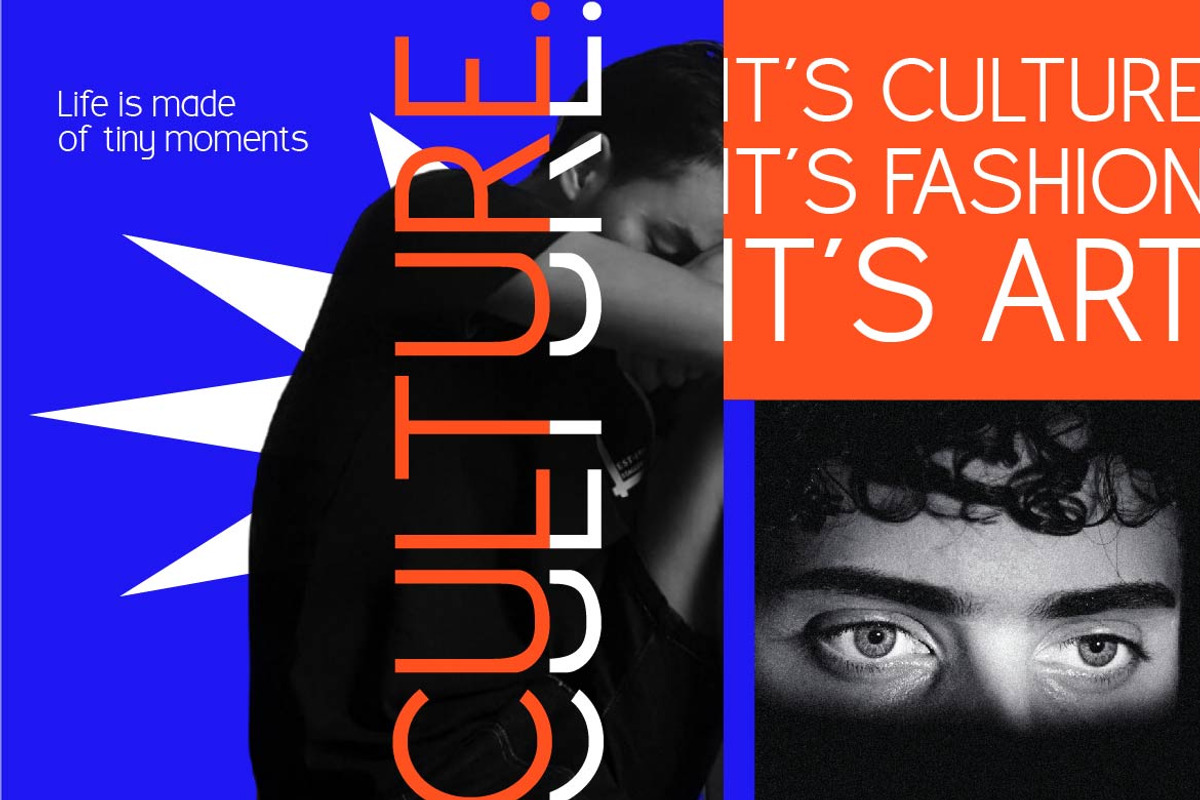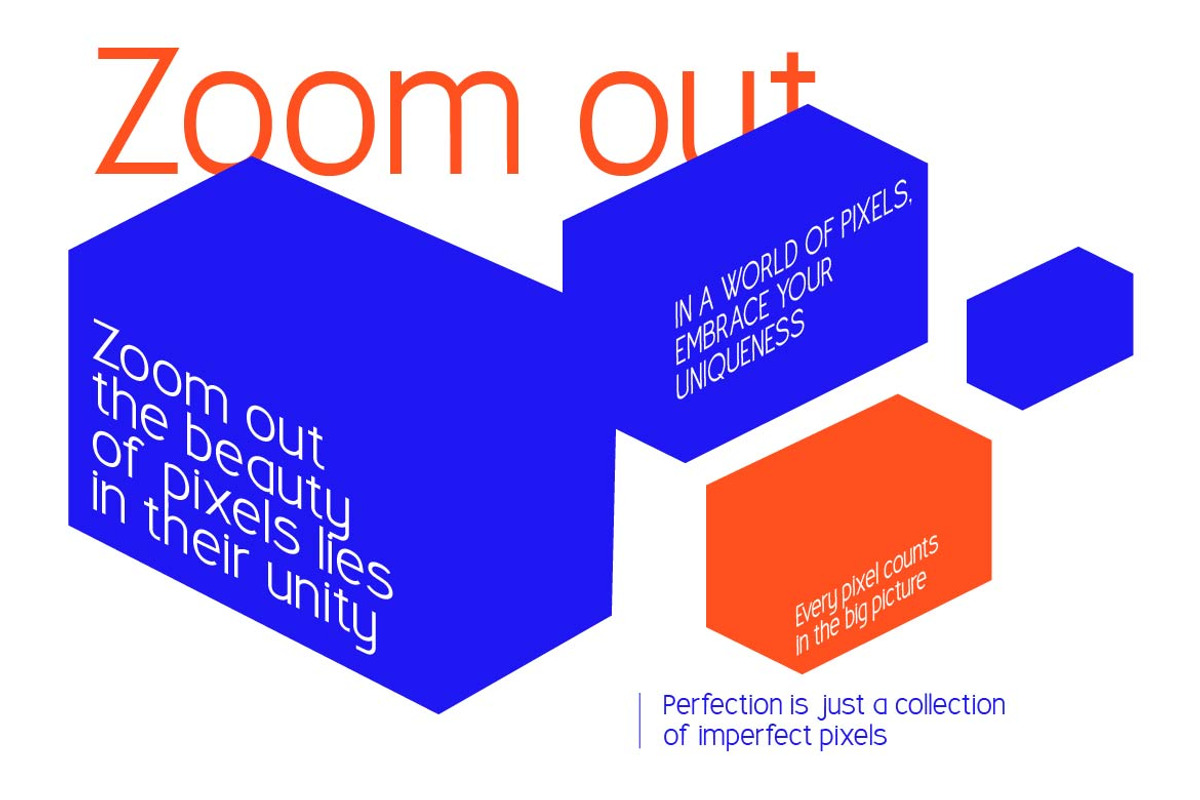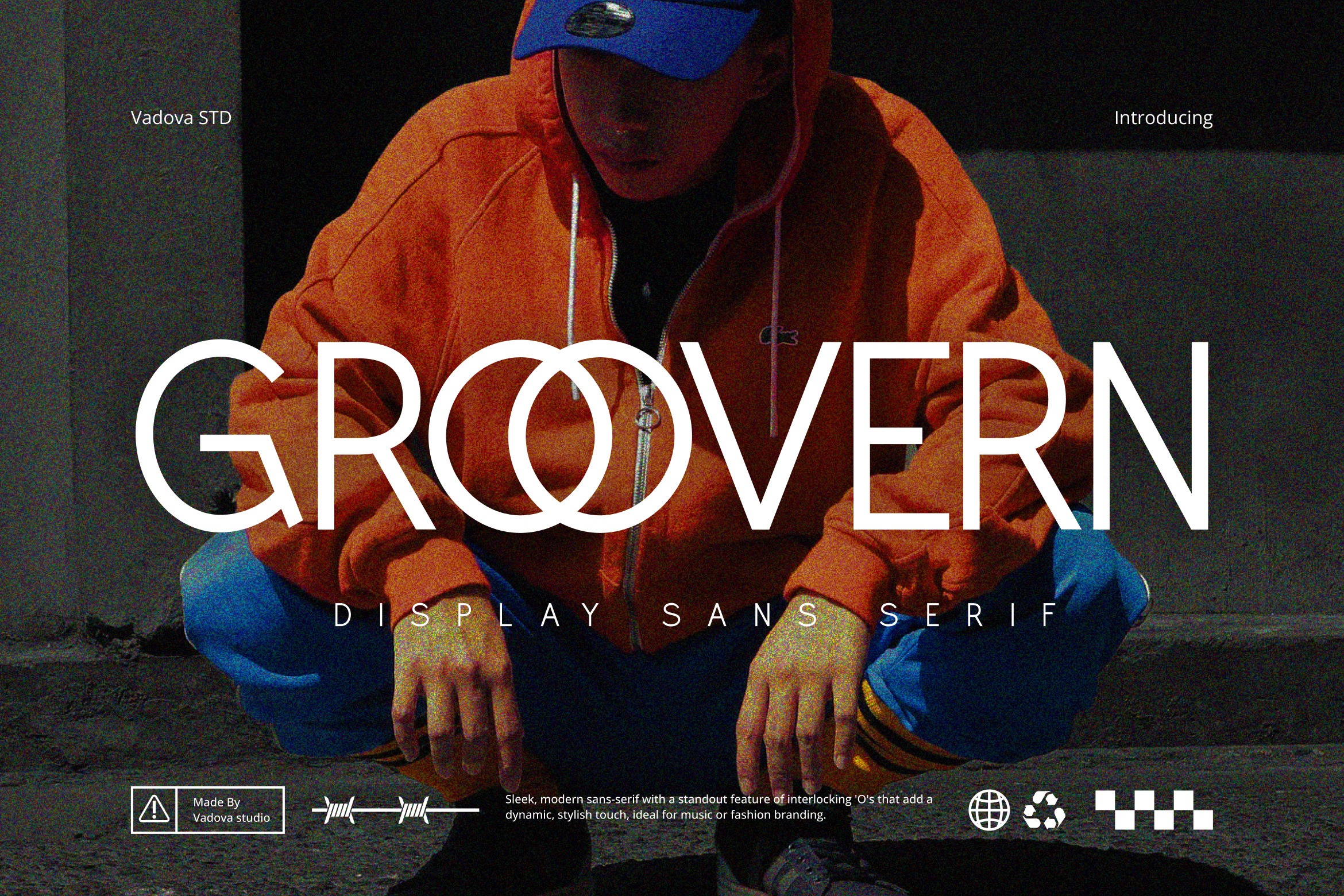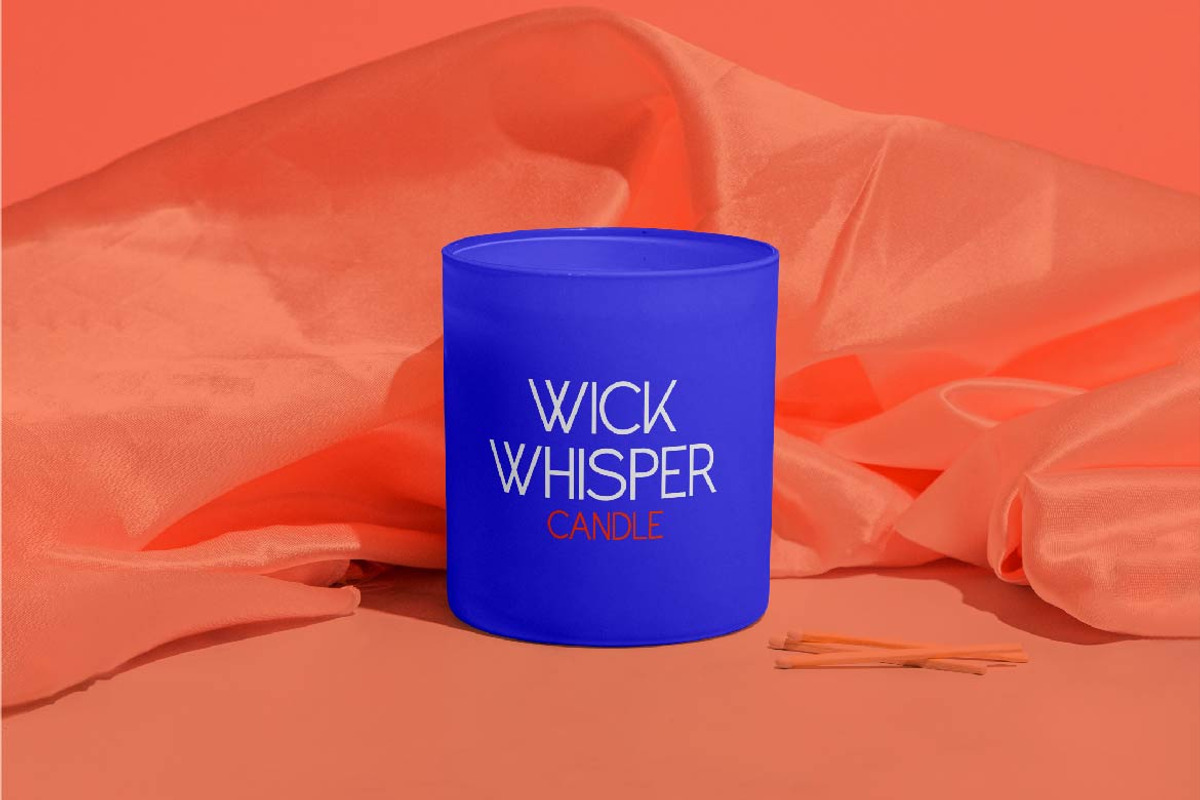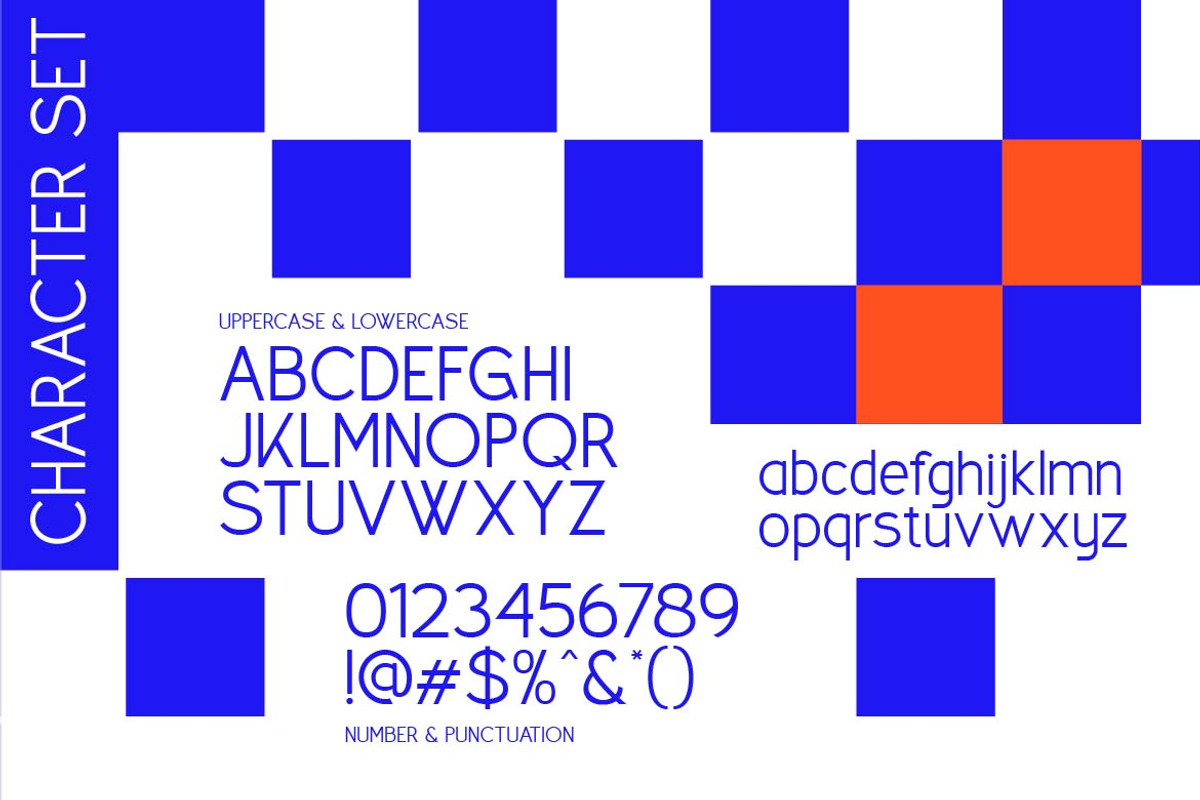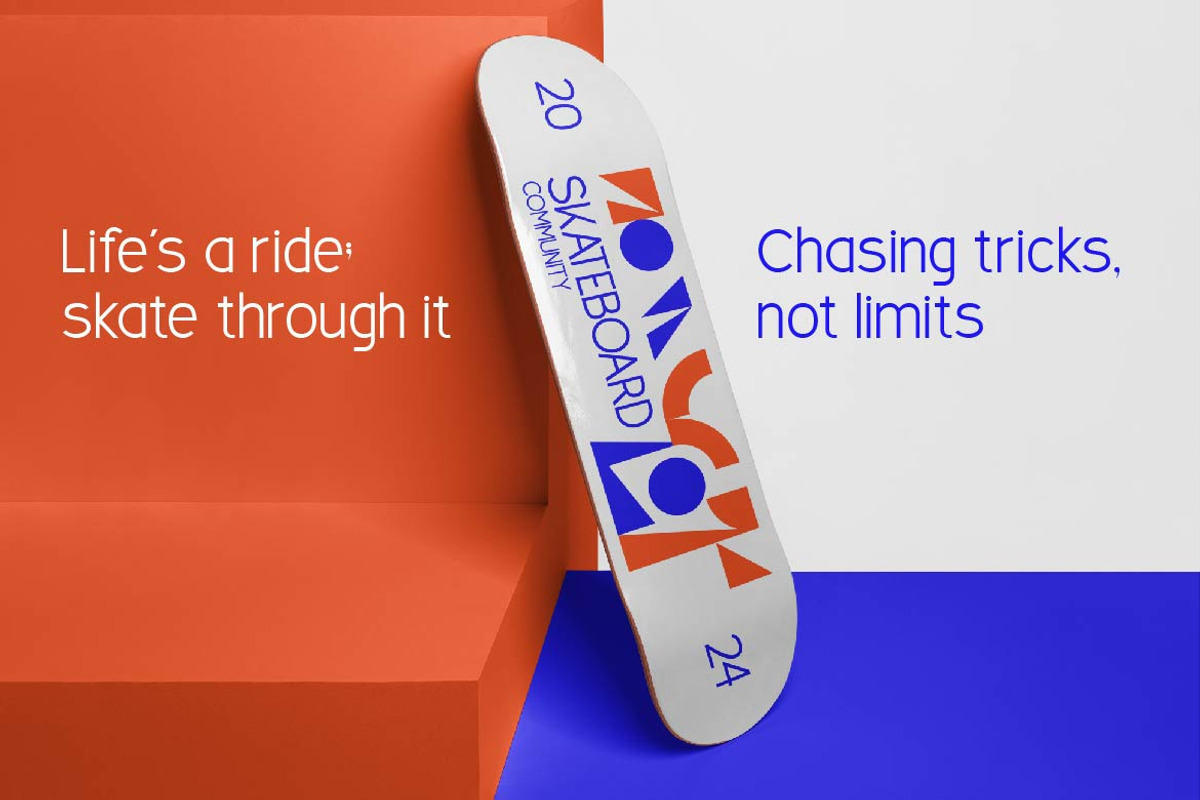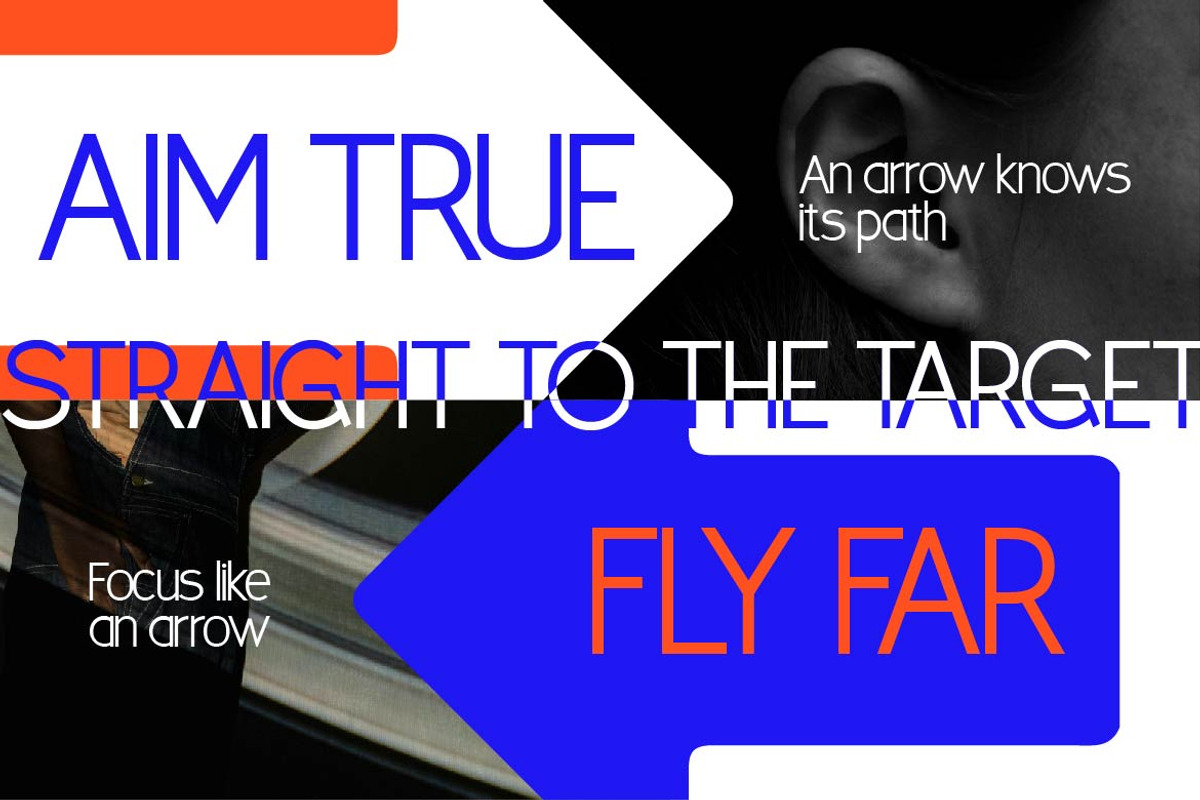
Groovern Sans Serif Font
Groovern is a bold and contemporary sans serif display font that fuses clean geometry with urban style. Designed with a standout interlocking “O” motif, this font adds a layer of visual rhythm and identity that immediately grabs attention. Groovern includes uppercase and lowercase characters, numerals, and a full set of punctuation marks, making it flexible for a wide range of creative uses.
With its sleek lines and streetwise edge, Groovern is ideal for modern branding projects, fashion labels, album art, poster designs, and youth-oriented content. It thrives in energetic compositions, thanks to its dynamic spacing and confident letterforms that give every layout a sense of motion and style. Whether you’re building a streetwear campaign, a skateboarding brand, or music event visuals, this typeface speaks with a tone that is bold, youthful, and expressive.
Neutral grotesk foundation blended with edgy, modern attitude
Smooth geometric shapes with clean, consistent stroke weight
Well-balanced spacing and proportions for impactful headlines
Designed for expressive branding, youth culture and fashion layout
Compact character width for tight compositions and bold layout impact
Brand identities with a bold, urban, or fashion-forward personality
Album covers, music event posters, and streetwear marketing assets
Social media templates, reels covers, and YouTube thumbnails
Product packaging and labels for modern fashion or sports items
Typography-driven layouts in catalogs, or zines
Full Cyrillic and Latin multilingual support
Supports numerals, punctuation, and extensive symbol set
Make your mark with Groovern a modern display font built for bold branding, youth culture, and creative energy.